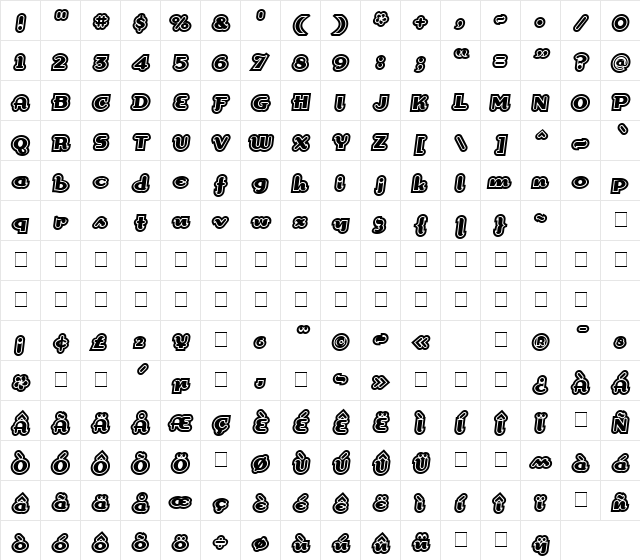
DogmaExtraOutline Extra Outline
Style: Extra Outline
DogmaExtraOutline Family
DogmaExtraOutline Extra Outline
Design Context for DogmaExtraOutline
DogmaExtraOutline is built around its visual character rather than neutral utility - its distinctive forms are designed to make an impression at display sizes.
Font Pairing: Pair with a clean neutral sans-serif for body copy to let DogmaExtraOutline's character lead without overwhelming the composition.
Pro Tip: Use DogmaExtraOutline exclusively at display sizes - it was designed to be seen, not read at length. Let a neutral companion handle body copy.